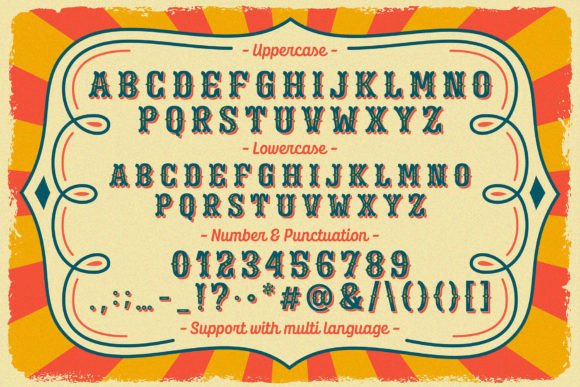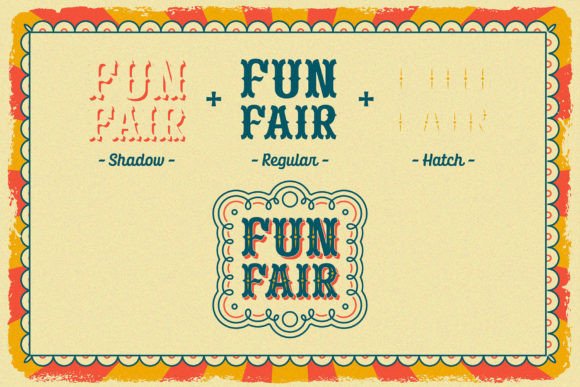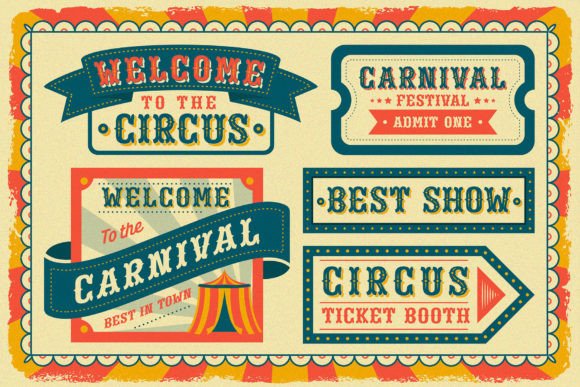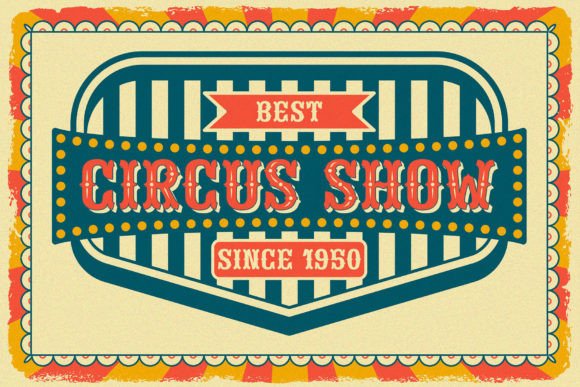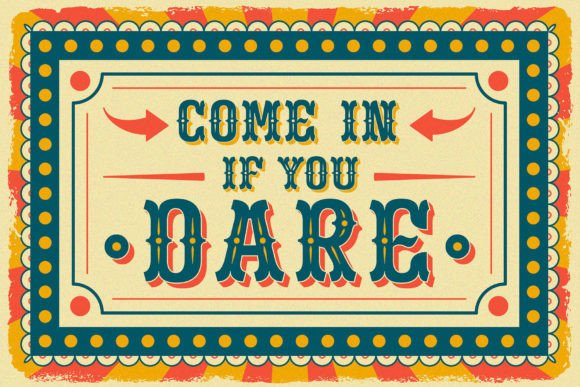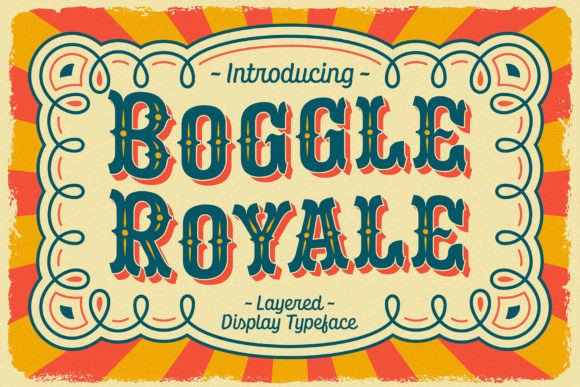
Boggle Royale Font: Elevate Your Designs with a Vintage Circus Flair
Are you looking for a font that can add a touch of nostalgia and excitement to your designs? Look no further than Boggle Royale, a layered display typeface inspired by the vintage design of circus and festival signage. This unique font is sure to make your projects stand out and leave a lasting impression on your audience.
The Inspiration Behind Boggle Royale
Boggle Royale takes its cue from the classic signage of circuses and festivals, evoking memories of summertime fun and excitement. The font’s design is characterized by bold, playful, and eye-catching lettering, perfect for grabbing attention and creating a sense of drama. Whether you’re working on a poster, a logo, or a social media graphic, Boggle Royale is sure to add a touch of magic to your design.
What Makes Boggle Royale So Special?
So, what sets Boggle Royale apart from other fonts on the market? Here are just a few reasons why this font is a cut above the rest:
• Layered design: Boggle Royale features a unique layered design, allowing you to create complex and visually interesting text effects with ease.
• Vintage flair: The font’s vintage inspiration gives it a distinctive look that’s sure to evoke memories of a bygone era.
• Highly versatile: Whether you’re working on a digital project or a print design, Boggle Royale is the perfect choice for a wide range of applications.
How to Use Boggle Royale in Your Designs
Adding Boggle Royale to your design projects is easy. Here are a few tips to get you started:
• Use it as a headline font: Boggle Royale is perfect for use as a headline font, where its bold and eye-catching design can really make an impact.
• Experiment with layering: Take advantage of the font’s layered design to create complex and visually interesting text effects.
• Pair it with other fonts: Boggle Royale pairs well with a wide range of other fonts, making it easy to create a cohesive and visually appealing design.
Why Designers and Crafters Love Boggle Royale
Boggle Royale has quickly become a favorite among designers and crafters, and it’s easy to see why. Here are just a few reasons why this font has become so popular:
• Easy to use: Despite its complex and layered design, Boggle Royale is surprisingly easy to use, making it accessible to designers of all skill levels.
• High-quality design: The font’s high-quality design ensures that it looks great in any application, from digital designs to print materials.
• Unique and eye-catching: Boggle Royale’s unique design makes it a great choice for designers looking to create eye-catching and memorable designs.
In conclusion, Boggle Royale is a unique and versatile font that’s perfect for designers and crafters looking to add a touch of vintage flair to their projects. With its layered design, vintage inspiration, and highly versatile nature, this font is sure to make your designs stand out and leave a lasting impression on your audience. So why wait? Add Boggle Royale to your design toolkit today and see the amazing results for yourself!